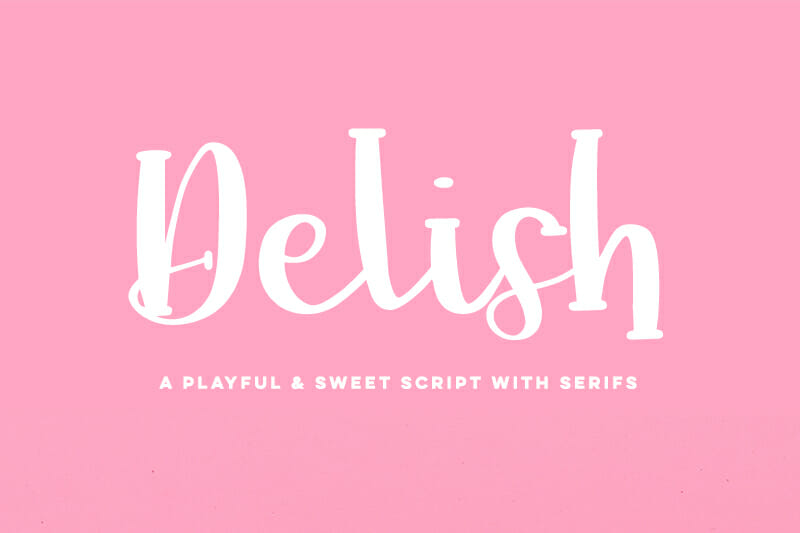
Delish Serif Script Font
Introducing Delish Serif Script Font!  Delish Script is a fun, whimsical new font with adorable little serif details on each letters.
Meet Delish Serif Script Font, a bubbly cursive font with playful serifs! Delish Serif Script font has playful serif details and seamless letter-to-letter connections, making it a perfect pick for your next project.
Delish Script Font is best for:
– clean print design, like funky magazines + flyers
– header elements that need a fun, legible touch
– logos + branding that are kid-centric
– quote graphics for social media or t-shirt design